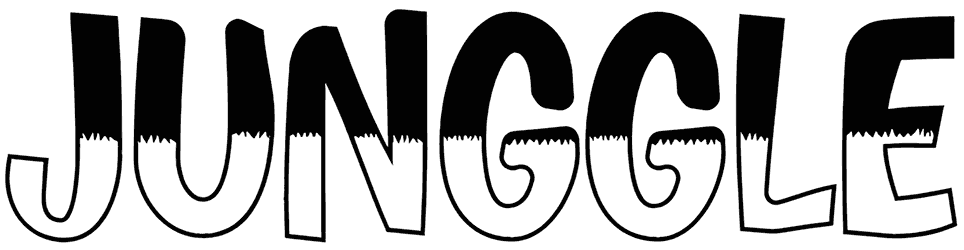
Junggle Font
An all-caps playful font, such as Junggle, would add a fresh breath to all of your visual content, like animation posters, logos, illustrations, or social media posts. It is a pure mixture of elegance and contradiction, thus it can make your work look more appealing to the audience and grab their attention by instilling a vibe of playfulness, momentum, or dreaminess in their minds.